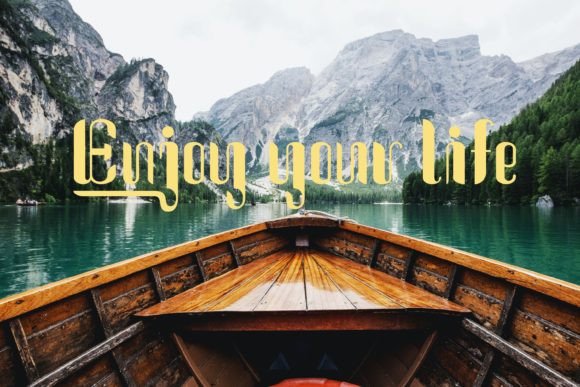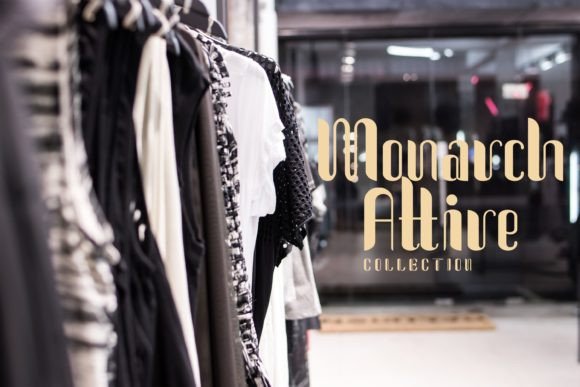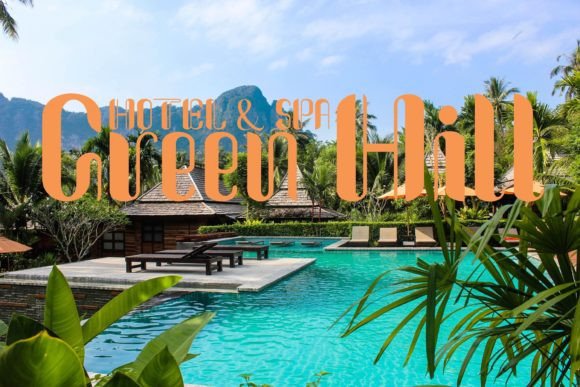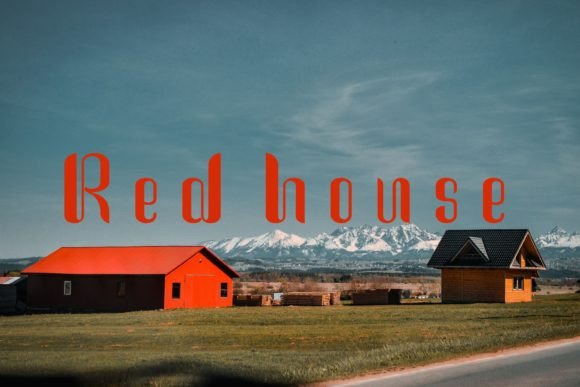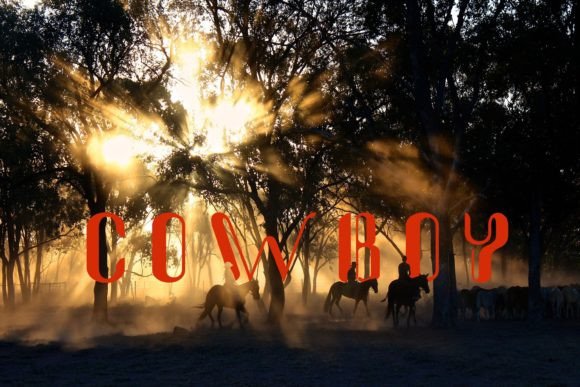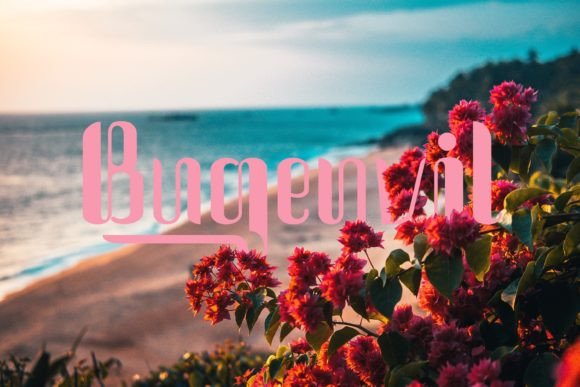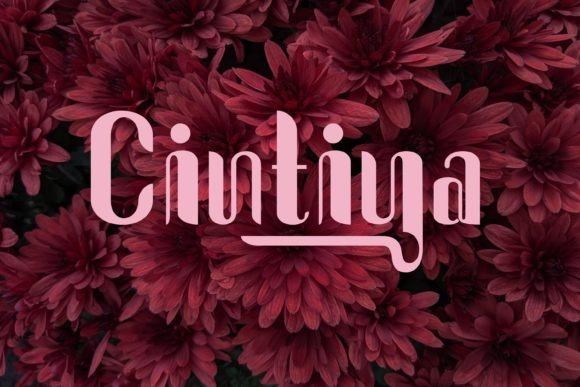
The Designer’s Delight: Cintiya Font
I’ll never forget the time I was working on a project for a client’s t-shirt line, and I just couldn’t find the right font to bring their designs to life. The brief was simple: something bold, eye-catching, and fun. I scoured the internet, tried out countless fonts, but nothing seemed quite right. That was until I stumbled upon Cintiya. This unique and exciting display font has since become my go-to for all sorts of creative projects, from posters and stickers to album covers and magazine spreads.
So, what makes Cintiya so special? Let’s dive into the good stuff and, of course, a few quirks I’ve noticed.
- ✨ Unique Style: Cintiya has a distinctive flair that’s hard to find elsewhere. Its bold lines and curves make it perfect for grabbing attention.
- ✅ Versatility: Whether you’re designing for print or digital, Cintiya adapts beautifully. I’ve used it for everything from business cards to social media graphics.
- 💡 OpenType Features: This font comes with a range of OpenType features, including stylistic alternates and glyphs, which give you plenty of creative freedom.
While Cintiya is an amazing font, there are a few things to keep in mind:
- 🤔 Legibility at Small Sizes: Like many display fonts, Cintiya can get a bit tricky to read at very small sizes. It’s best used at larger sizes where its details can shine.
- ⚠️ Pairing Challenges: Due to its bold nature, Cintiya can be a bit challenging to pair with other fonts. You might need to experiment with a few combinations to find the perfect match.
Exploring Alternatives: Similar Fonts to Cintiya
While Cintiya is unique, you might be interested in exploring other fonts that offer a similar vibe. Here are a few alternatives:
- Great Vibes: A fun, adventurous script font perfect for headlines and titles. It’s got a more casual feel than Cintiya but shares a similar playfulness.
- Alex Brush: A beautiful, elegant script that works well for both digital and print projects. It’s a bit more refined than Cintiya but great for designs needing a sophisticated touch.
- Museo: A sleek, modern sans-serif with a luxurious feel. While it’s quite different from Cintiya, it shares a similar versatility and works well for a wide range of projects.
- Pacifico: A stunning script font with a relaxed, beachy vibe. It’s perfect for designs that need a laid-back feel but still want to make a statement.
The Story Behind Cintiya
Cintiya was designed with the goal of creating a font that stands out in any design. Inspired by vintage typography and modern trends, the designer aimed to craft a font that’s both nostalgic and fresh. The result is a font that feels both classic and contemporary, perfect for creative projects that need a bit of flair.
| Font Name | Cintiya Font |
Q: What makes Cintiya unique?
A: Cintiya’s uniqueness comes from its bold lines, distinctive curves, and extensive OpenType features, making it versatile for various design projects.
Q: Is Cintiya difficult to read at small sizes?
A: Like many display fonts, Cintiya is best used at larger sizes. At very small sizes, it can be challenging to read, so it’s recommended to use it for headlines and titles rather than body text.